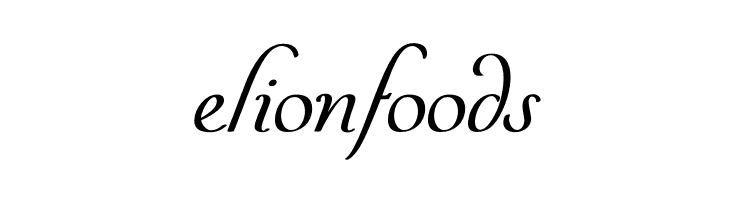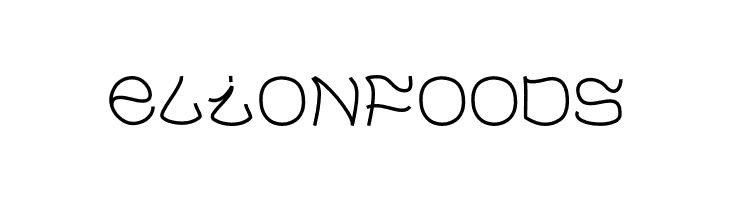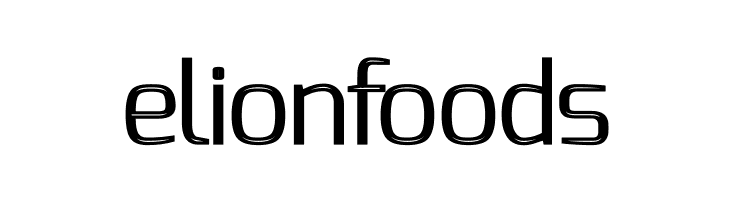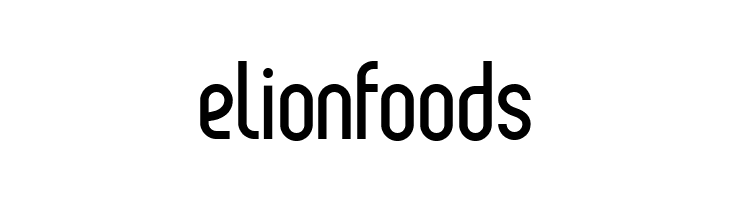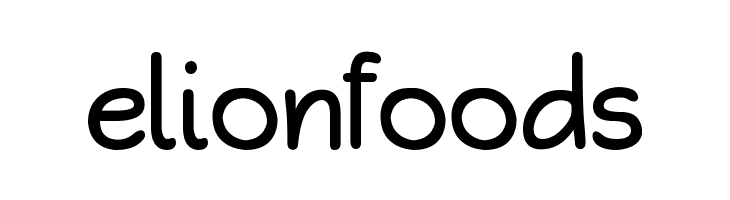
A decorative font with intricate wood grain patterns, ideal for artistic and nature-themed projects.
A bold, 3D cube-themed font with intricate, textured characters.
A bold, textured font with a 3D cube-like appearance, perfect for decorative use.
A bold, scratch-textured font with a dynamic and fierce appearance.
An elegant script font with flowing, connected letters and a sophisticated style.
An elegant script font with flowing, cursive letterforms and sophisticated style.
A playful and whimsical script font with flowing, interconnected letterforms.
A playful, whimsical font with tall, narrow letters and a creative flair.
A whimsical and decorative font with playful curls and swirls.
A modern, elegant font with sleek, elongated characters.
An elegant, flowing script font with thin, delicate strokes.
A delicate, elegant script font with flowing, connected letters.
A dynamic and flowing script font with elegant, italicized letterforms.
A dynamic and flowing script font with elegant, cursive letterforms.
A clean, geometric font with a modern and minimalist design.
A whimsical and artistic font with flowing, interconnected strokes.
A geometric, angular font with a modern and minimalist design.
A modern, geometric sans-serif font with tall, narrow characters.
A modern sans-serif font with geometric and balanced letterforms.
A playful, rounded font with smooth curves and consistent stroke width.
A sleek, modern font with elongated, narrow letterforms and a sophisticated appearance.